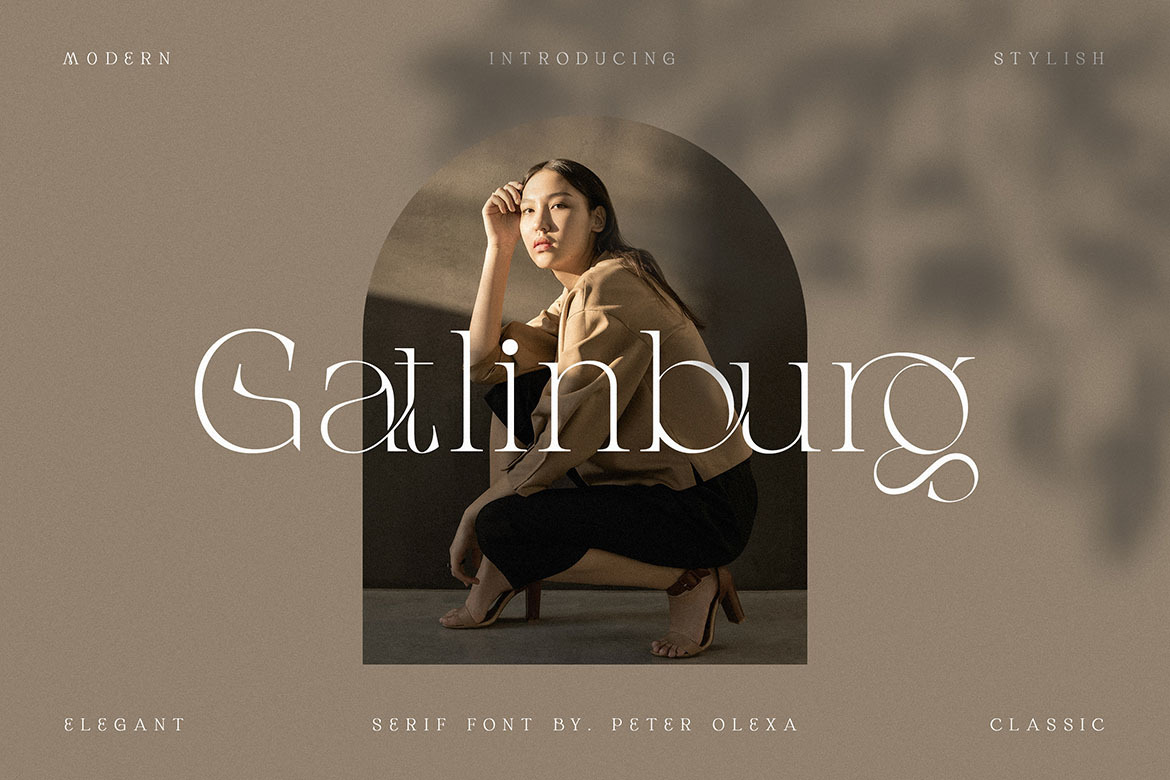
Gatlinburg - Modern Serif Font
Trendy or modern style serif font for your fancy projects. Elegant and classic style on Gatlinburg font will be great for any branding project. Lot of alternates and ligatures will help you to create unique and original logo design or website header! Enjoy :)
- 2 styles: Regular & Italic
- Lot of alternate characters
- Lot of ligatures
- Great for modern branding projects!